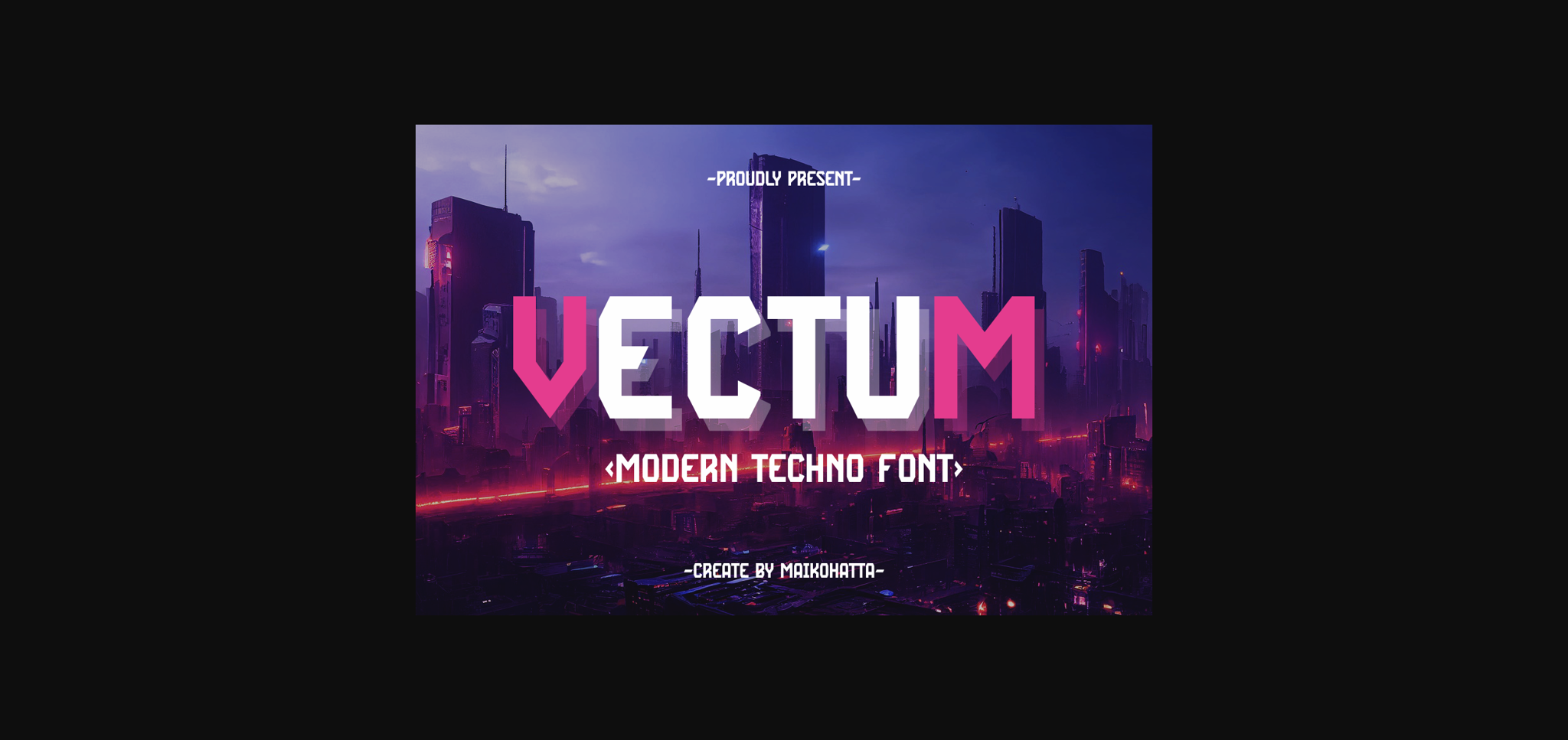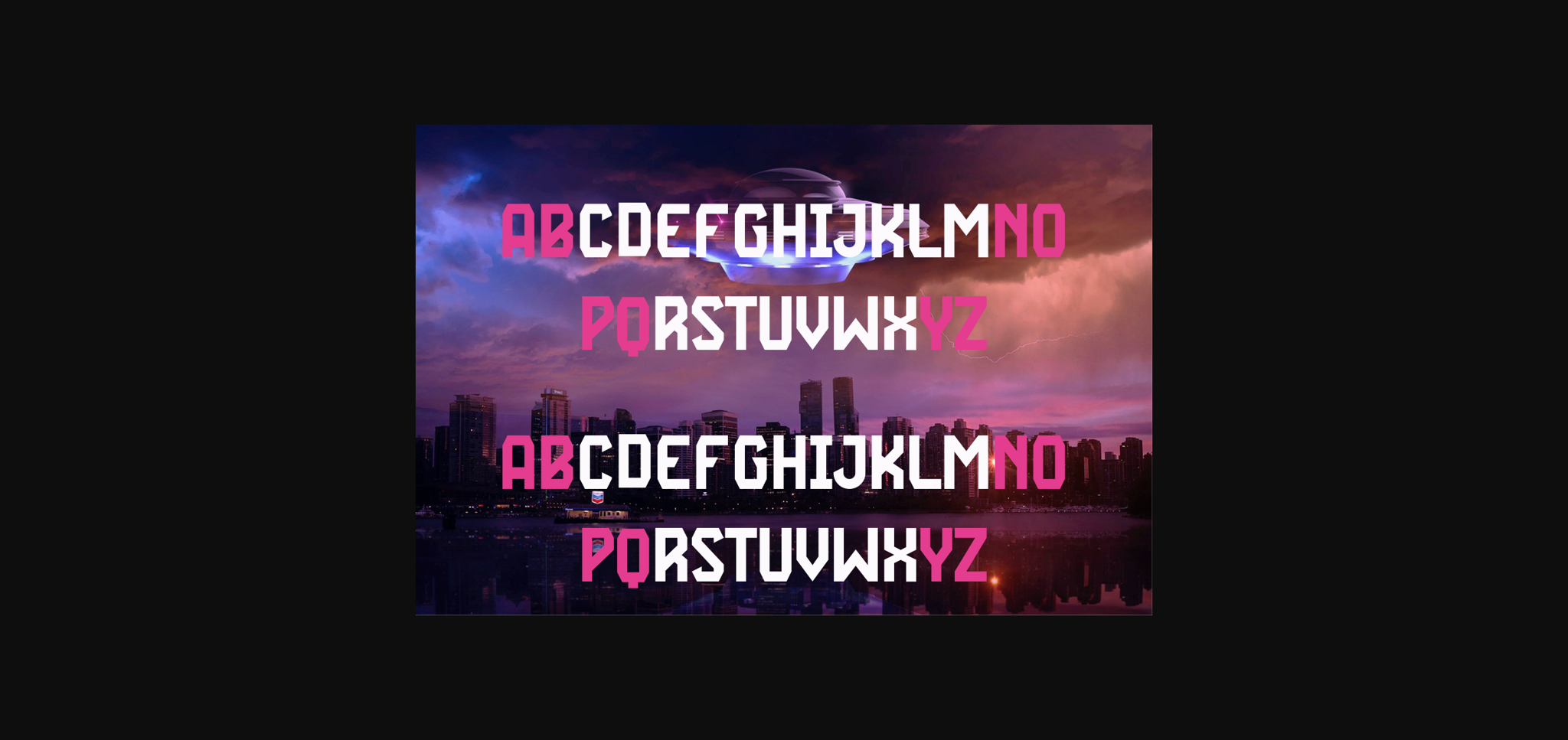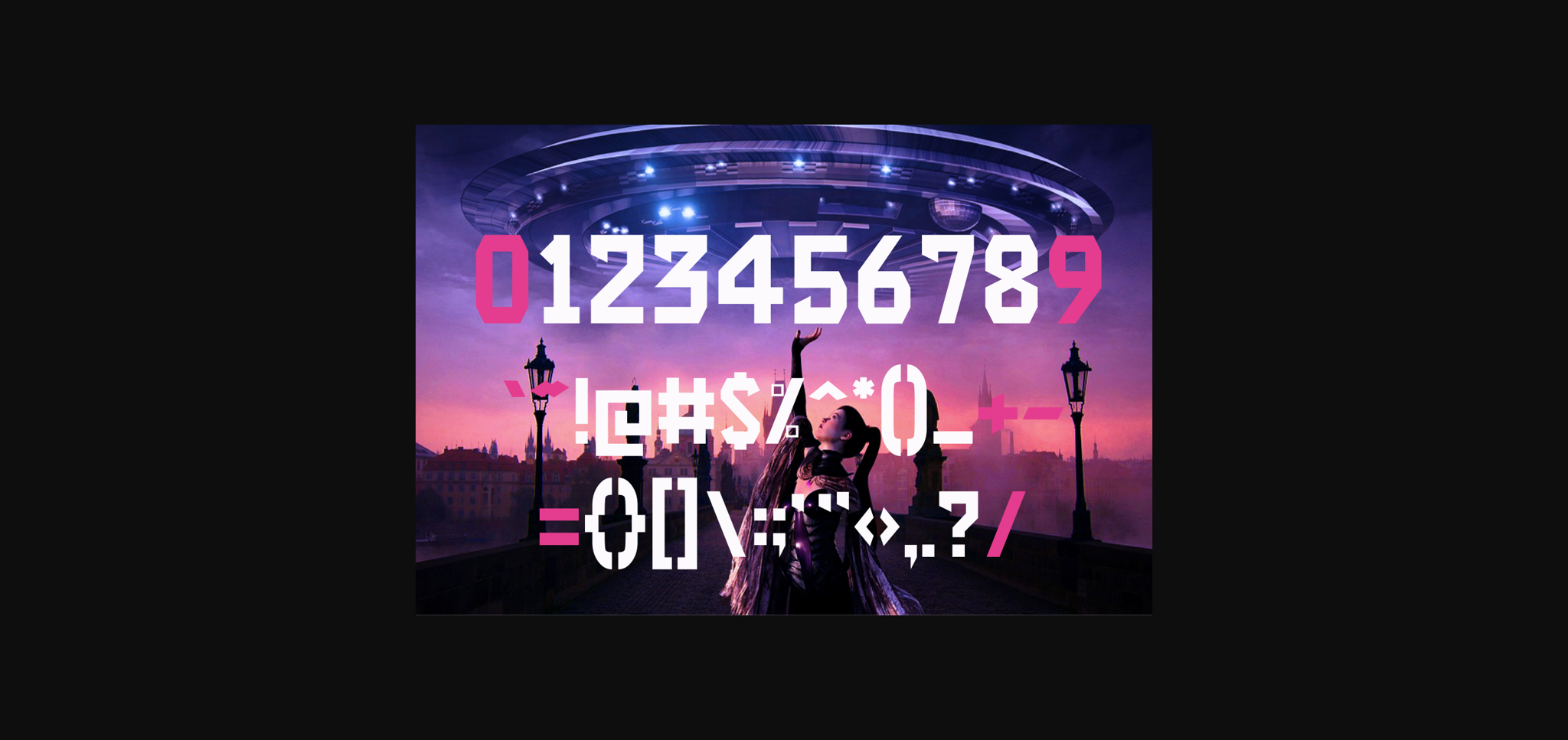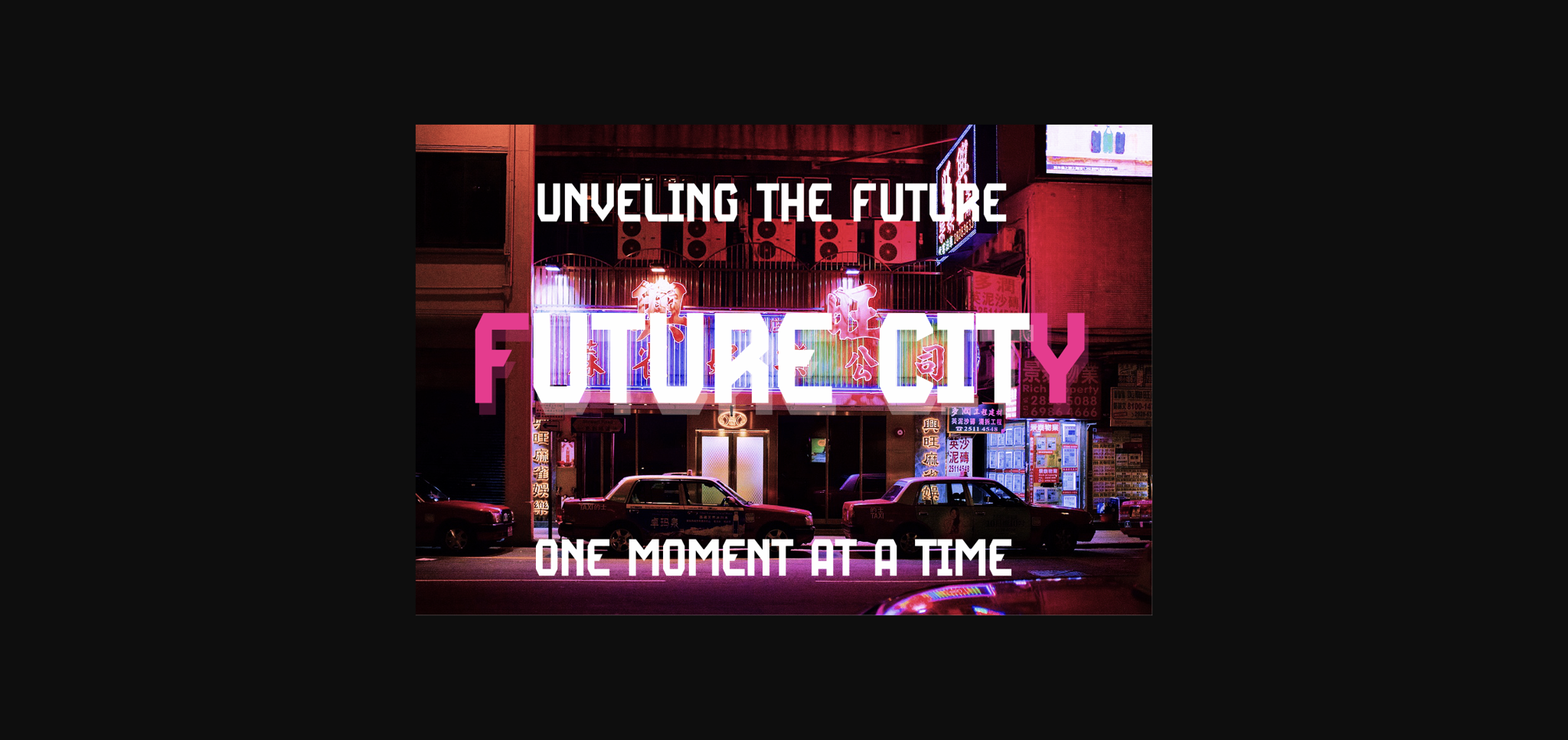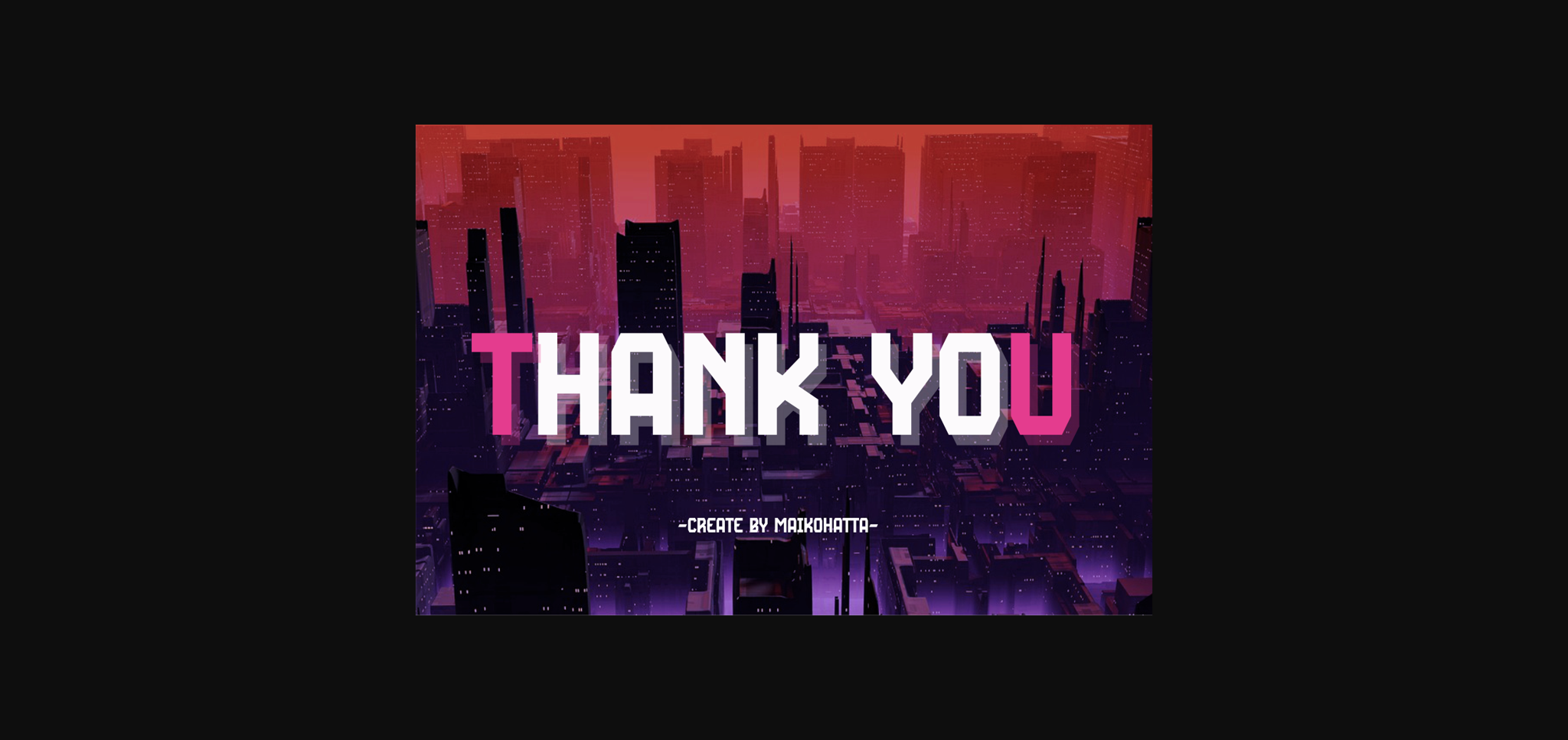
Vectum Font
About Vectum Font
This Font is a type of lettering that features a futuristic design inspired by advanced technology. Vectum reflects the digital era and technological advancements, bringing a sense of modernity, innovation, and energy to any design. With sharp lines, geometric letter shapes, and futuristic elements, this font is suitable for projects related to technology, robotics, science, and modern lifestyle. This font is often found in logos, website designs, posters, and other creative projects that require a futuristic touch.